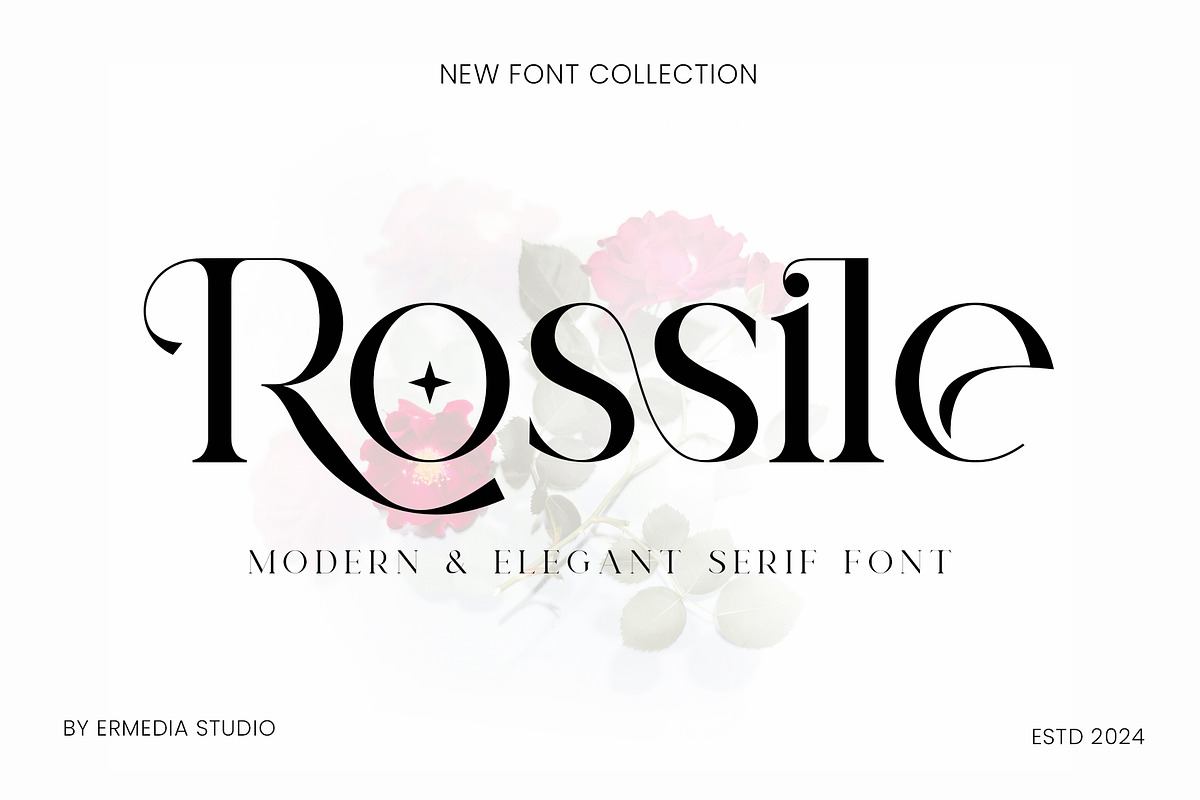
Rossile Serif Font Free Download is an elegant and timeless typeface designed to bring sophistication and style to any project. With its refined serifs, graceful curves, and high-contrast letterforms, Rossile is perfect for luxury branding, editorial design, wedding invitations, fashion lookbooks, and upscale packaging.
Its classic design is balanced with a modern sensibility, making it versatile enough for both bold headlines and delicate typographic details. Whether you're designing a logo or crafting an elegant print layout, Rossile adds a touch of class and professionalism.